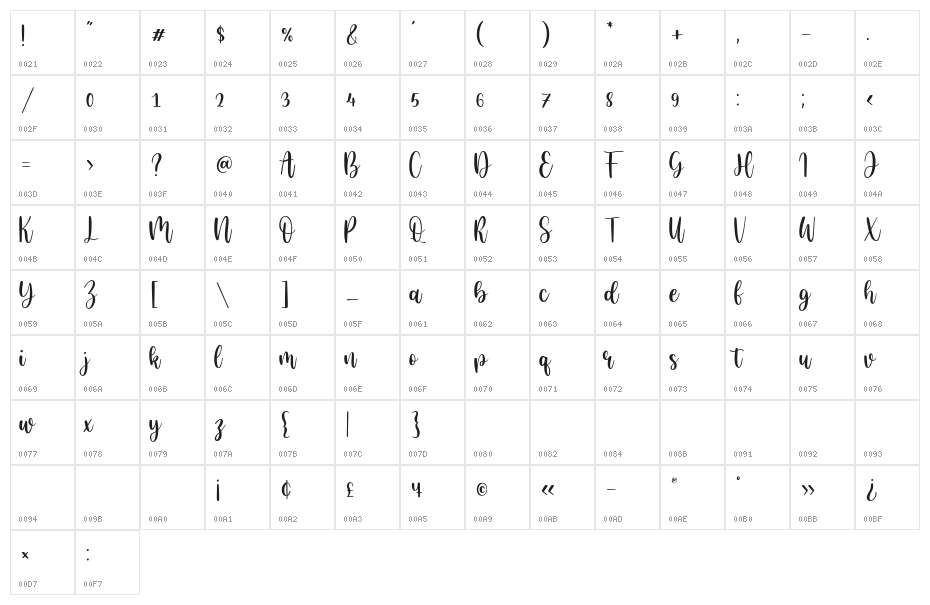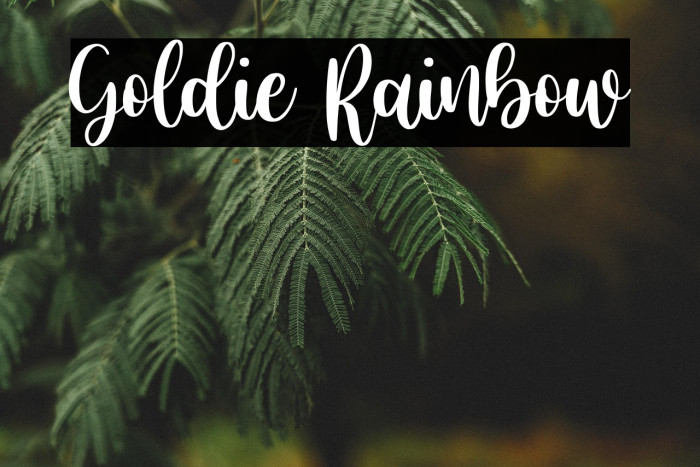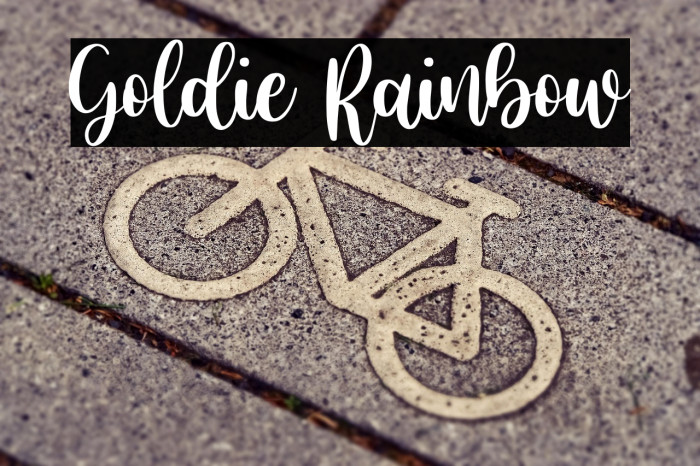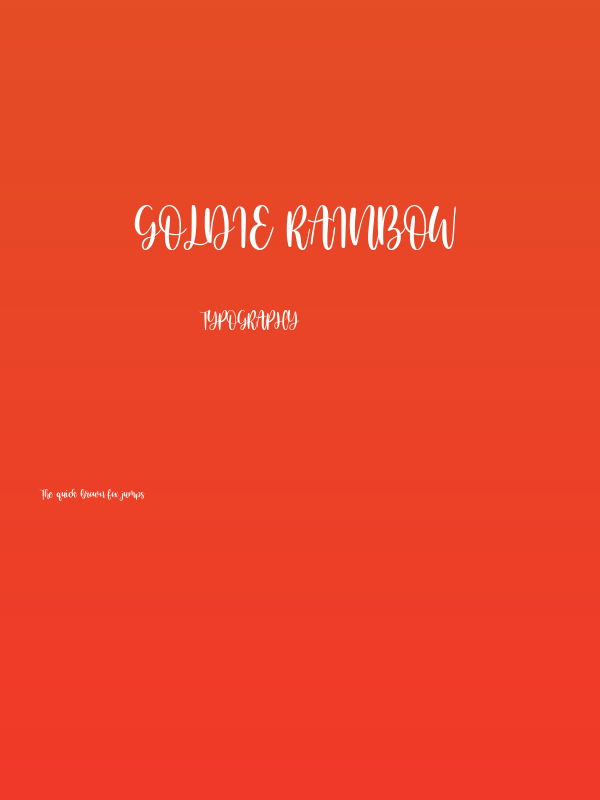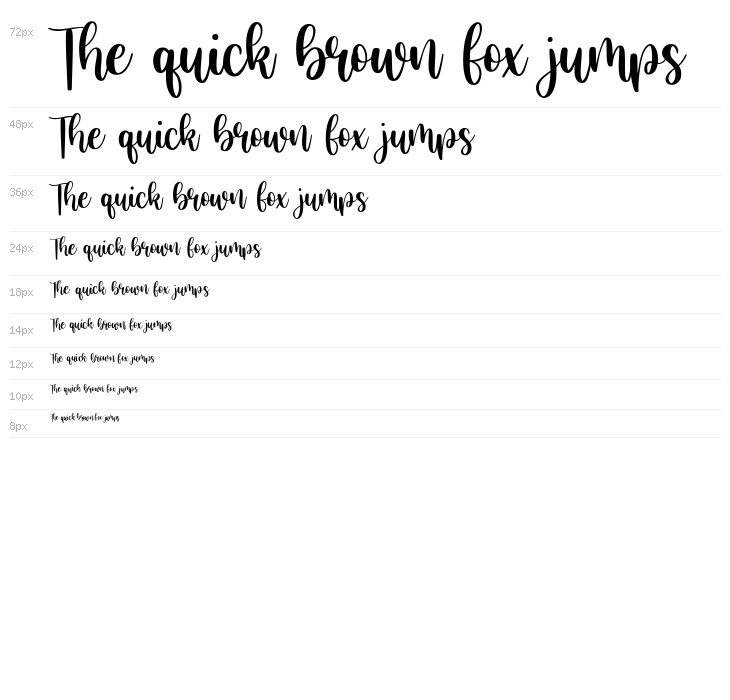
Goldie Rainbow Font
Goldie Rainbow Description
This font features a lively and flowing script style, characterized by its elegant and smooth curves. The letters are interconnected, giving it a cohesive and continuous appearance. The uppercase letters are bold and expressive, while the lowercase letters maintain a charming and playful demeanor. The numerals and special characters are designed to match the overall aesthetic, ensuring consistency throughout. This font exudes a sense of creativity and warmth, making it ideal for projects that require a personal touch.
| Proposed Projects | Ideal for wedding invitations, greeting cards, branding, and social media graphics. |